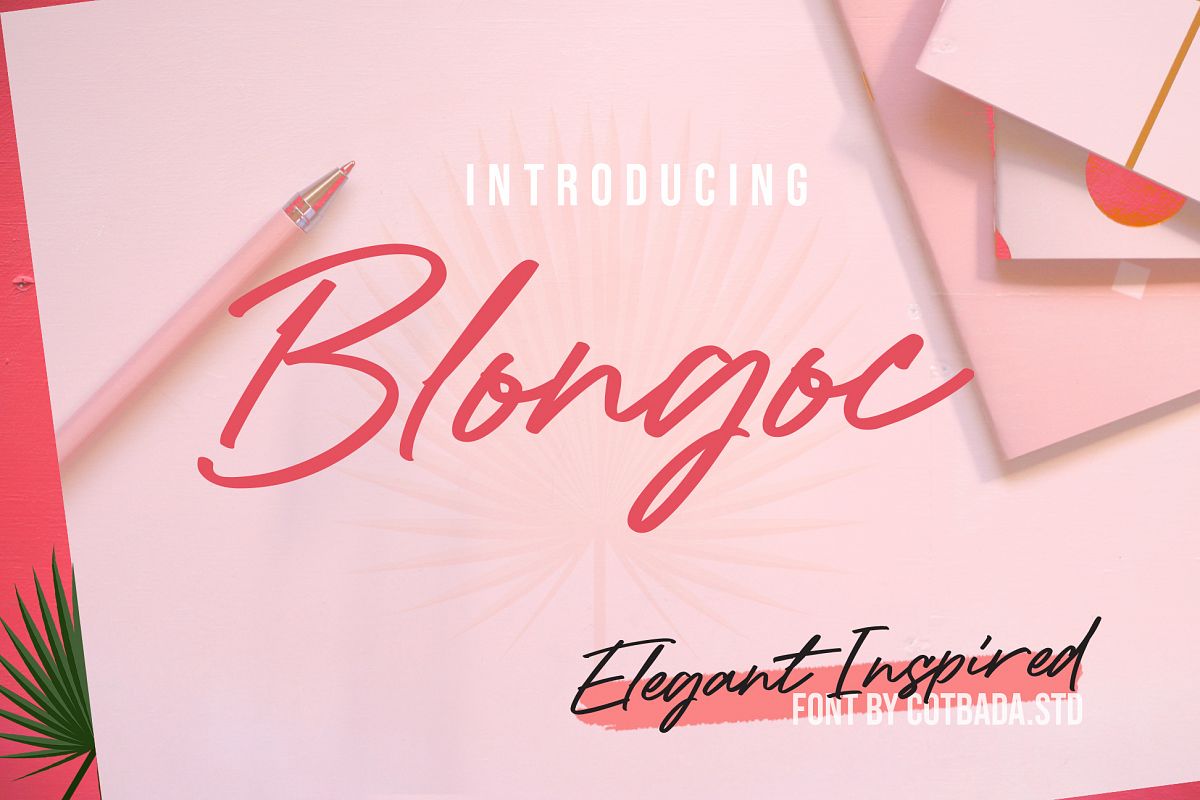
Blongoc Script
Blongoc Script Font is a unique, cool and modern handwritten font. It's hand look style makes it perfect for use in all your design projects be it logos, labels, packaging design, blog headlines, Poster. etc